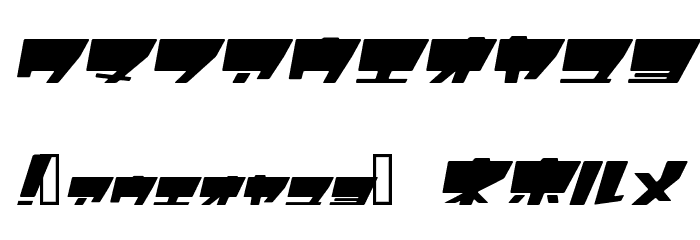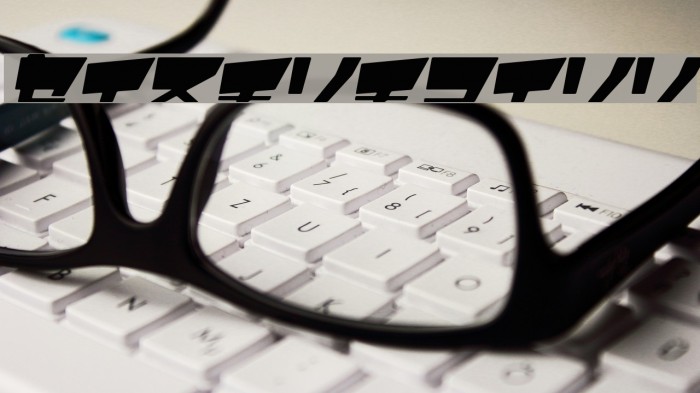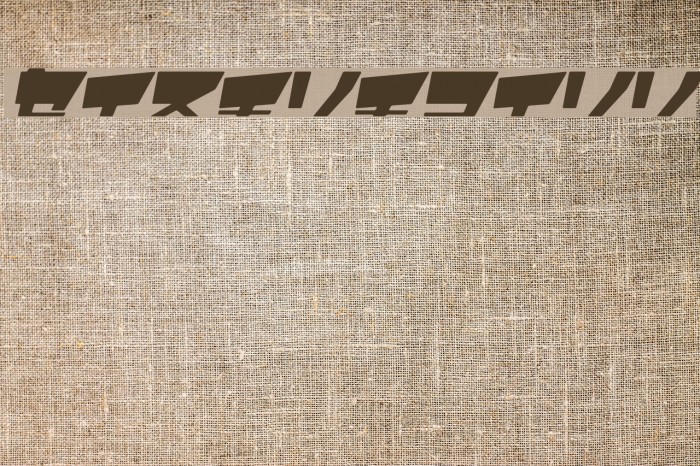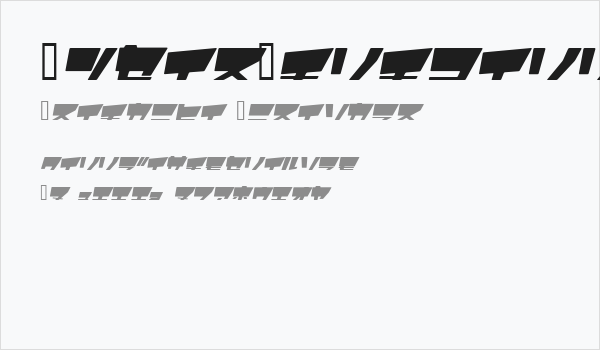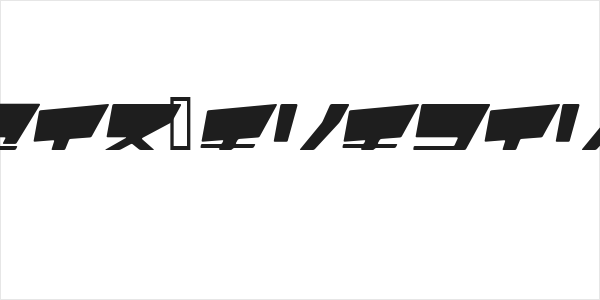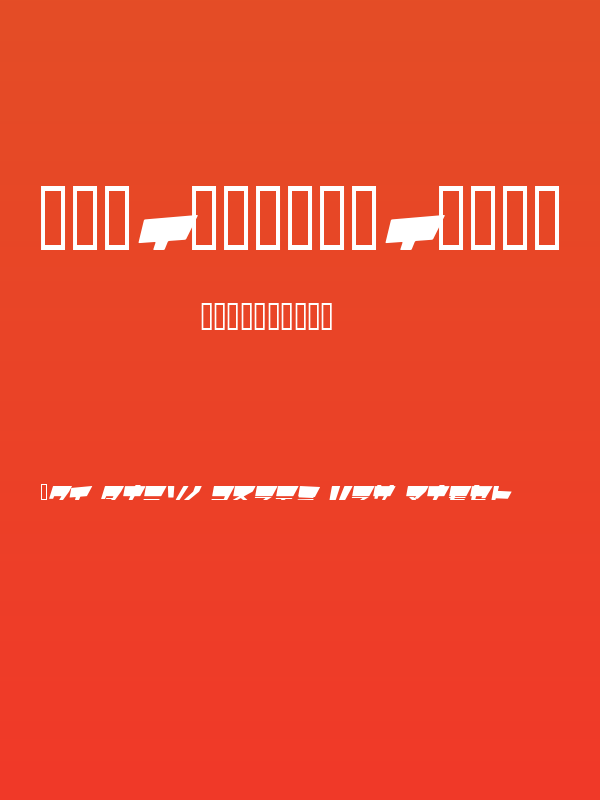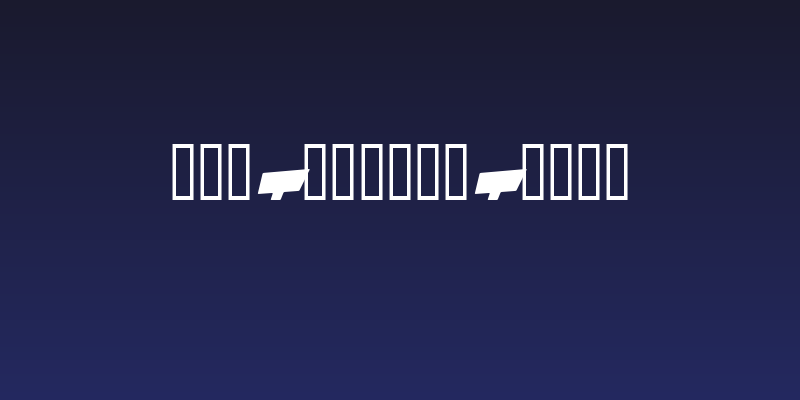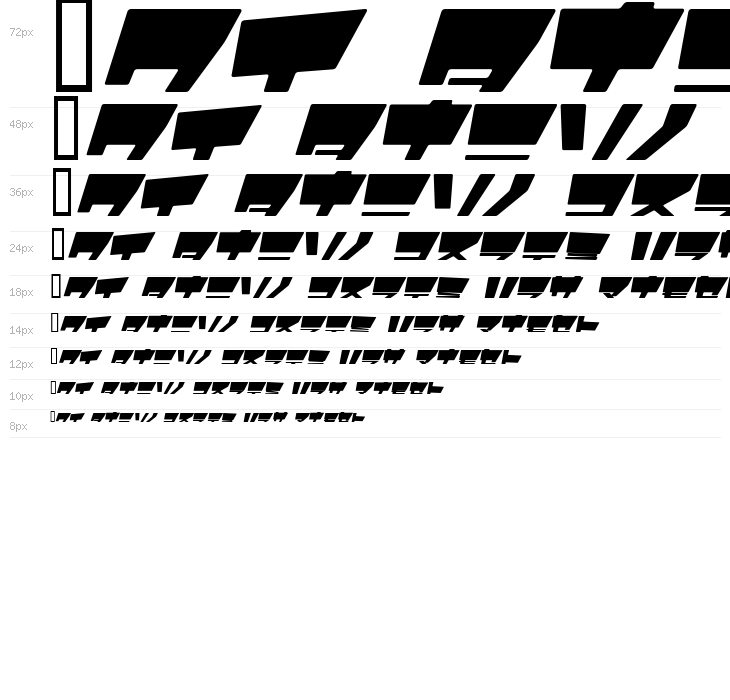
HyperLalabellJI Font
HyperLalabellJI Description
This font features a bold and dynamic style with sharp, angular edges and a futuristic aesthetic. The characters are heavily stylized, with a strong emphasis on geometric shapes and a sense of movement. The uppercase letters are particularly striking, with a blocky and aggressive appearance, while the lowercase letters maintain a consistent design language. The numbers and special characters follow the same bold and angular theme, making the font suitable for attention-grabbing designs. The overall look is modern and edgy, perfect for projects that require a strong visual impact.
| Overall Style | Futuristic, Edgy, Modern |
| Proposed Projects | Ideal for sci-fi themed posters, video game titles, branding for tech companies, and any project needing a modern, edgy look. |